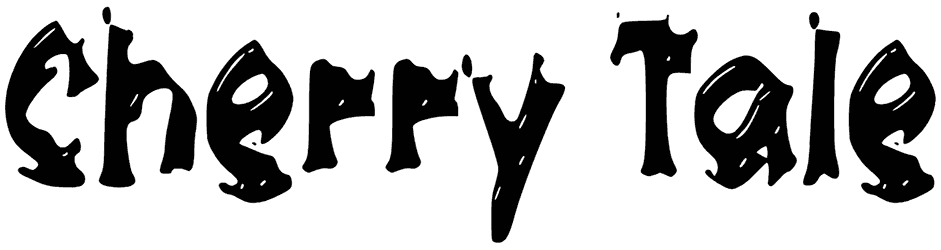
c Cherry Tale Font
c Cherry Tale is a scary font that always has a way of grabbing your viewer’s attention, even if he watches you through the cracks of his fingers. Behind the bloody appearance, this dripping font hides a great power to convey deep emotion. It can help you shout out your messages.
The letters of this horror font look simple, but if you use them subversively, you can add the spirit of Halloween to your website, posters, and books.
It has an interesting history